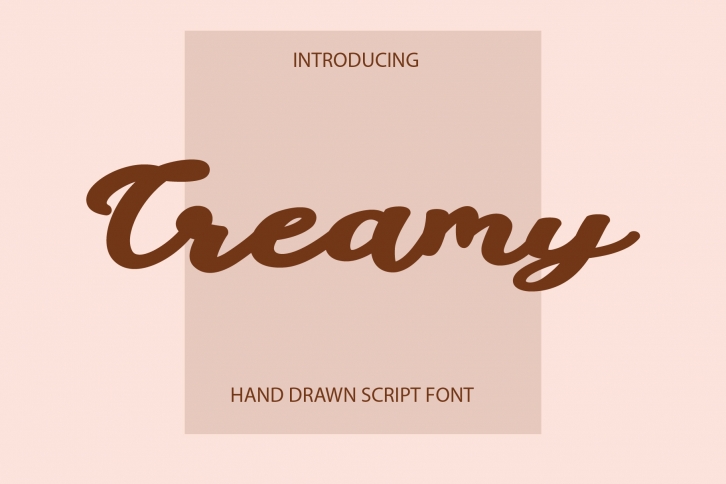
Creamy is a paint brushed and cursive script font. It has beautiful and well balanced characters and as a result, it matches a wide pool of designs. Add it to your most creative ideas and notice how it makes them come alive!